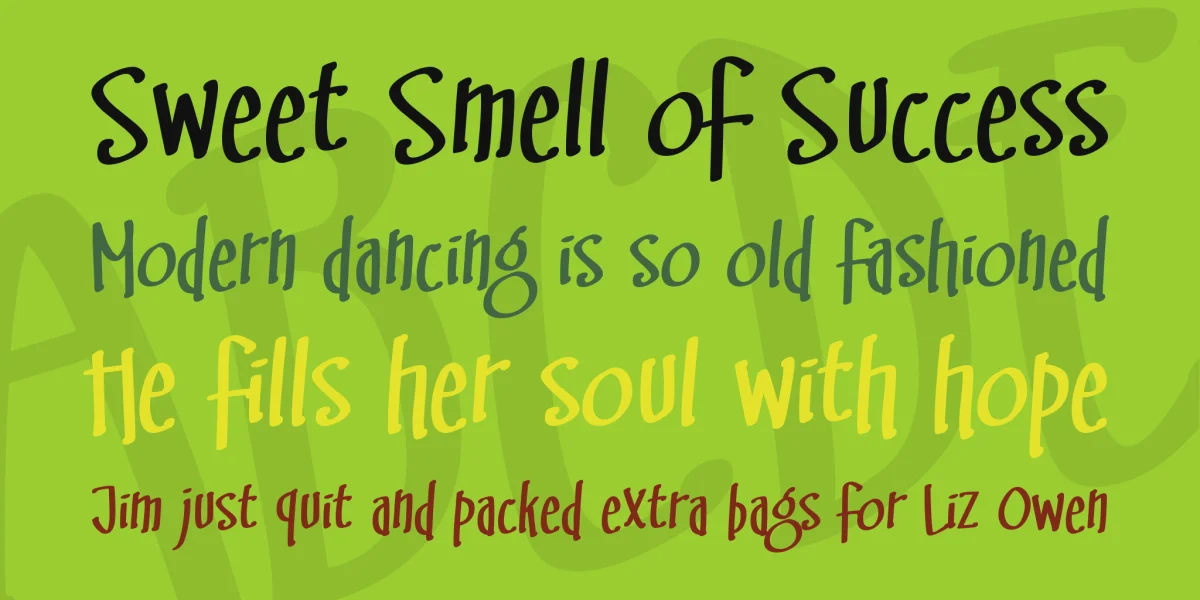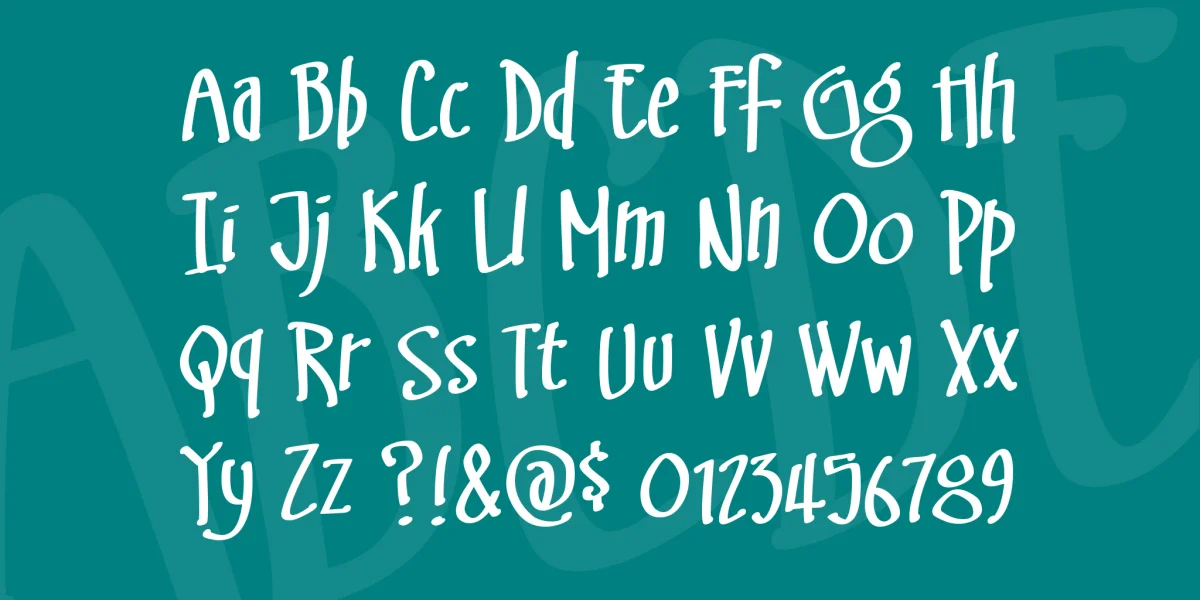
Ah, the carefree days of yesteryear…when your biggest concern was a surprise wedgie on the playground. You can re-live those fanciful (and sometimes excruciating…) days with SwingSet! A playful upper/lower font.